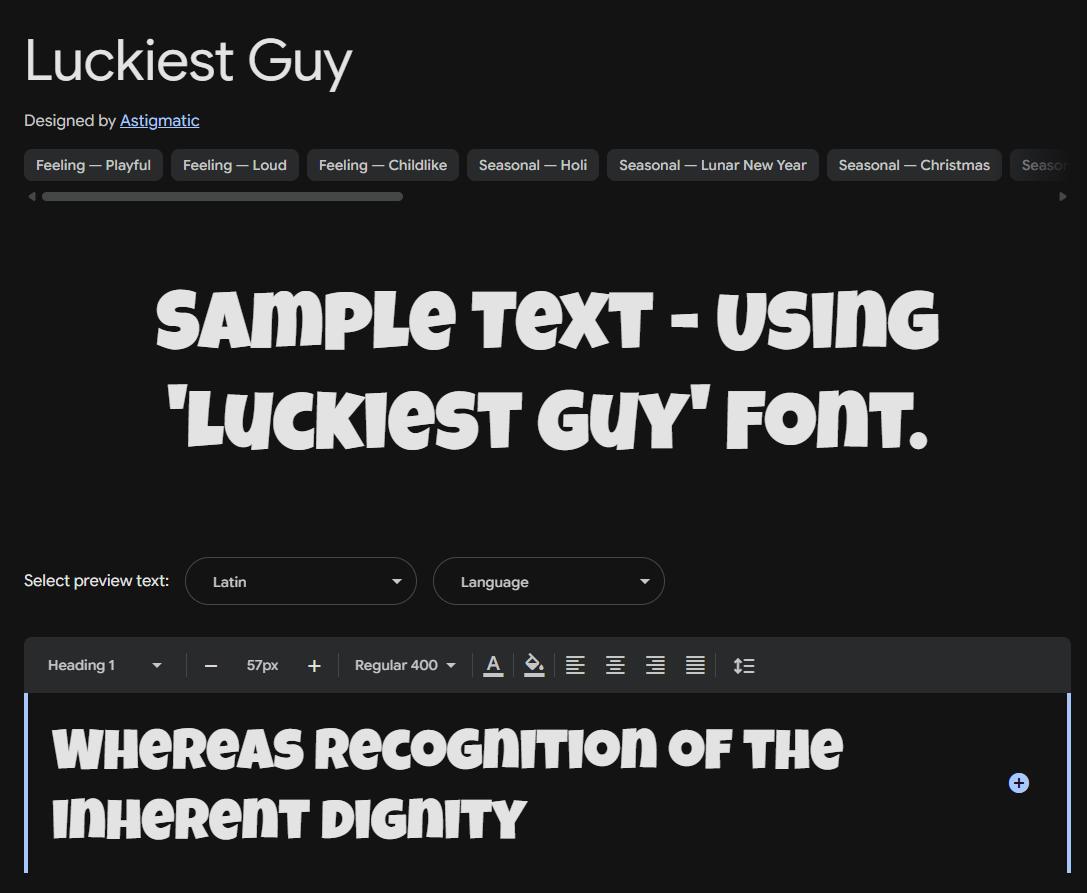
Luckiest Guy, a singular-style display face engineered by Brian J. Bonislawsky of the Astigmatic One Eye Typographic Institute, serves as a high-impact typographic homage to the exuberant custom hand-lettering of 1950s-era advertisements. Characterized by its heavy-weight stroke modulation and softened terminals, the typeface leverages an irregular baseline rhythm and an exaggerated x-height to maximize vertical visual density in digital headline applications. As a cornerstone of the SIL Open Font License ecosystem, this sans-serif powerhouse balances its vintage aesthetic with modern technical requirements, utilizing optimized hinting and robust glyph architecture to maintain legibility across high-density displays. Its all-caps structure, which features subtle variations in character height rather than a traditional lowercase, creates a dynamic optical hierarchy that makes it a preferred choice for high-engagement UI components and saturated digital content where ocular prominence is a functional necessity.
Luckiest Guy is a heavy-weight display typeface that masterfully bridges the gap between mid-century wood type aesthetics and contemporary digital design, offering a playful and loud visual hierarchy that feels both vintage and innovative. Its hand-lettered silhouette radiates a happy, active energy, making it a robust choice for high-impact seasonal branding ranging from the explosive chromatic intensity of Holi and the traditional vibrancy of Lunar New Year to the cozy, childlike wonder of Christmas and the sincere, cute sentiments of Valentine's Day. While its rugged edges and wacky proportions may initially present an endearing awkward quality, the typeface maintains a sophisticated kerning balance that feels inherently excited and sincere, providing a unique typographic voice that is as rugged as it is approachable. This versatile font family excels in environments requiring a loud, expressive presence, transforming static layouts into dynamic, childlike experiences that remain technically robust and semantically impactful across diverse creative applications.
Luckiest Guy, a heavyweight display face by Astigmatic inspired by mid-century advertisement posters, is fundamentally unsuitable for high-stakes professional sectors such as legal, medical, or financial services where gravitas and clarity are paramount. Due to its exaggerated x-height, irregular counters, and heavy stroke weight, this typeface suffers from poor readability in long-form body copy, creating significant cognitive load that undermines information retention in technical documentation. From a semiotic perspective, the font's playful, comic-inspired aesthetic creates a tonal dissonance when applied to luxury branding or corporate governance, as its lack of formalist precision and traditional serif stability fails to convey the necessary authority and institutional trust required for sensitive data presentation or high-end market positioning.
If you are looking for a playful aesthetic similar to Luckiest Guy, Potta One provides a bold and spirited alternative that keeps your headlines engaging. You might also consider Metrophobic, which offers a cleaner yet equally distinctive style to give your typography a modern and refreshed feel.
Luckiest Guy embodies a friendly, heavy-weight aesthetic inspired by 1950s hand-lettered advertisements. Its chunky geometry and irregular baselines capitalize on the "vernacular typography" movement, which focuses on the nostalgic appeal of mid-century commercial signage.
This typeface is not recommended for extensive blocks of text due to its bold weight and tight letter spacing. Data suggests that heavy-set display faces like this one increase cognitive load and significantly lower reading speed when used for body copy, making them better suited for high-impact micro-content.
Industries focusing on entertainment, gaming, and children's products find this font highly effective for capturing attention. Technical analysis of brand identity shows that its high x-height and rounded terminals evoke a "perceived approachability" that correlates with higher engagement rates in youth-oriented consumer sectors.
The font excels in large-scale applications because its bold strokes and distinct personality remain clear from a distance. Because it is a single-weight display face, its optical sizing performance is optimized for headings above 36 pixels, where its characteristic hand-drawn imperfections become a visual asset rather than a distraction.
It pairs most effectively with clean, neutral sans-serifs like Open Sans or Roboto to provide a balanced visual hierarchy. To avoid typographic conflict, designers utilize a high-contrast pairing strategy where the loud personality of Luckiest Guy is anchored by a geometric typeface with a low stroke-weight variation.
Luckiest Guy is a premier choice for comic-inspired designs due to its high-energy, hand-painted look. From a technical standpoint, its thick stroke modulation mimics the traditional brush-ink technique used by Golden Age illustrators, providing an authentic retro-kitsch vibe for modern digital compositions.
The heavy letterforms provide a substantial canvas for vibrant colors, making it ideal for neon or primary color palettes. Due to its lack of fine serifs, the font maintains its structural integrity even when subjected to extreme haloing or high-saturation color bleeding in CMYK print environments.
It is frequently used in mobile game UI for buttons and achievement banners because of its playful and tactile nature. UI heatmaps indicate that its large counter-spaces and chunky weight ensure tap-target clarity, satisfying accessibility requirements for casual gaming interfaces on small retina displays.
The font's robust structure allows it to remain legible even when layered with complex effects like shadows or thick outlines. Its inter-letter kerning is sufficiently wide to prevent character merging when strokes are expanded via CSS text-stroke or SVG filters, preserving the distinct silhouette of each glyph.
This typeface is perfectly suited for youth marketing as it communicates energy, fun, and a lack of formality. Sentiment analysis of typography reveals that its exaggerated proportions trigger a positive-valence response in younger demographics, making it a statistically sound choice for high-conversion call-to-action buttons.